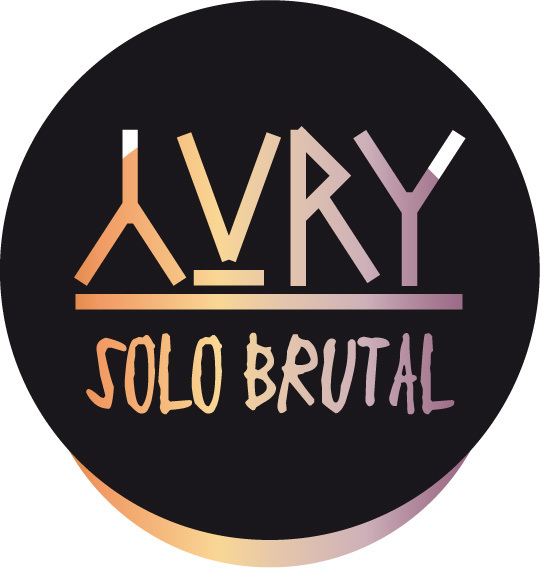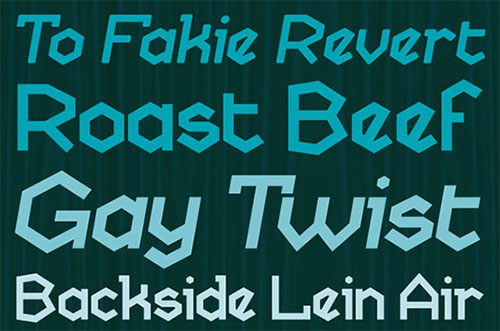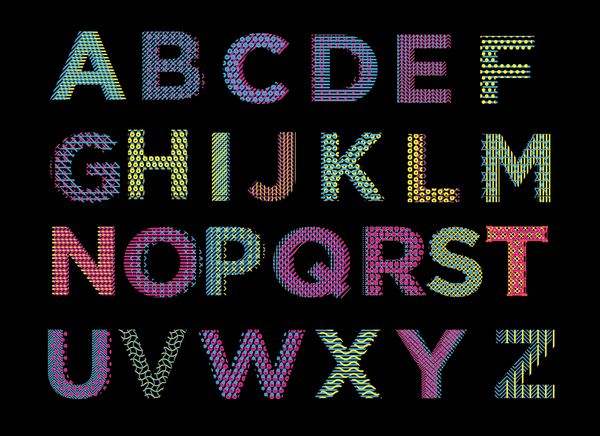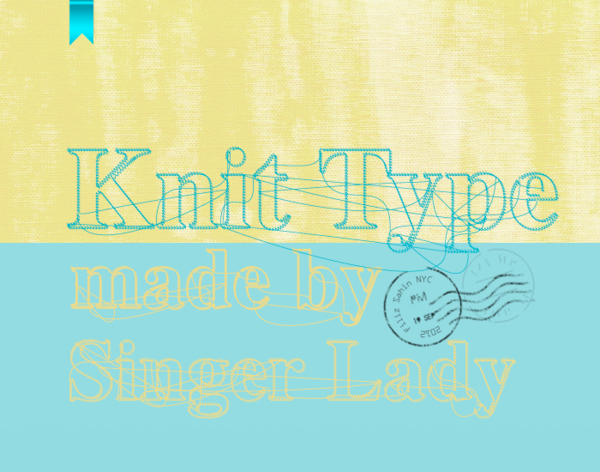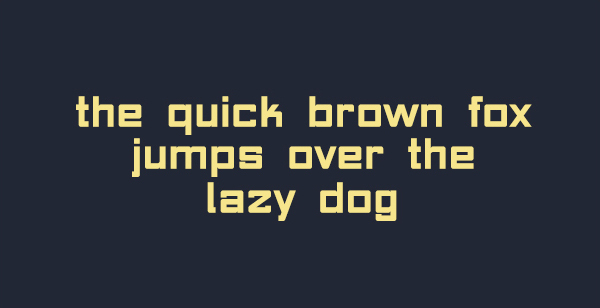
Unique and Creative Free Fonts
Any design project, whether for web or otherwise, should have a focus on typography. In fact it should be one of the first things you think of before beginning. Fonts and typefaces serve much more purpose than to look pretty, which is why there are so many of them available out there.
Typefaces actually affect the branding, image and atmosphere given off by your company. They offer a first impression of your business without a client or customer having to even know what you do. If this has you rethinking the typography on your website, you might want to check out some of these creative free fonts to jazz your site up. You can download fonts and start designing great typography driven websites.
Stitching Font by Filiz Sahin
This font is bold and colourful and almost something you’d expect to find in  retro comic or on an Andy Warhol creation. Square and capitalised, letters are presented with a patterned overlay in a variety of bright shades.
This is YURY by Stefano Fusaro
This red typeface is very linear and almost childlike, made up of a series of red rectangles in each letter. It almost looks as if someone had used colourful sellotape to create each letter.
Navia Type by 21LAB
The self-described bold and sharp font does exactly as it says on the tin. Made of angular white type with filled-in holes in letters, this is certainly a statement typeface.
Drop Type by Filiz Sahin
Another colourful Sahin creation, this typeface is fantastically colourful, filled with psychedelic rainbow blobs on each letter. Again type is in capitals and the pattern on each letter would suit a retro themed site.
Adamas Regula by Octavian Belintan
This cool, quirky font is made up of a web of thin white lines inside a bold, block letter. The pattern is designed so that it almost seems like the font itself is 3D.
MAKHINA by Nuno Dias
One of the only fonts to come in a lowercase type, the MAKHINA free font is one which is bold and unmistakable. The bright yellow shade of the type seems suited to those in trades with its immediate stand-out effect.
Metropolis 1920 by Josip Kelava
As the name of this font suggests, there’s a serious 1920s vibe going on here. The simple font uses 2 white parallel lines to create each letter giving it an ultimately timeless feel.
Skatekey Font by Greg Eckler
This chunky typeface offers both uppercase and lowercase letters to create letters which are angular but have a sort of pointy handwriting feel to them. The colour scheme is shades of blue, which looks beautifully ombre in the preview of this font.
Drebeden Font by Serge Shi
This beautifully elegant font looks as though it’s jumped straight off a film poster from the 1960s. Sharp, slim and with extended upper and lower tails, it’s the perfect headline writing for a classy, elegant homepage.
Knit Type by Filiz Sahin
Sahin seems unstoppable in the creation of forward thinking free fonts and the knitting type is no different. Ideal for a visual and creative site, knitting type makes letters look like they have been stitched onto the site, with strings of yarn joining them together.